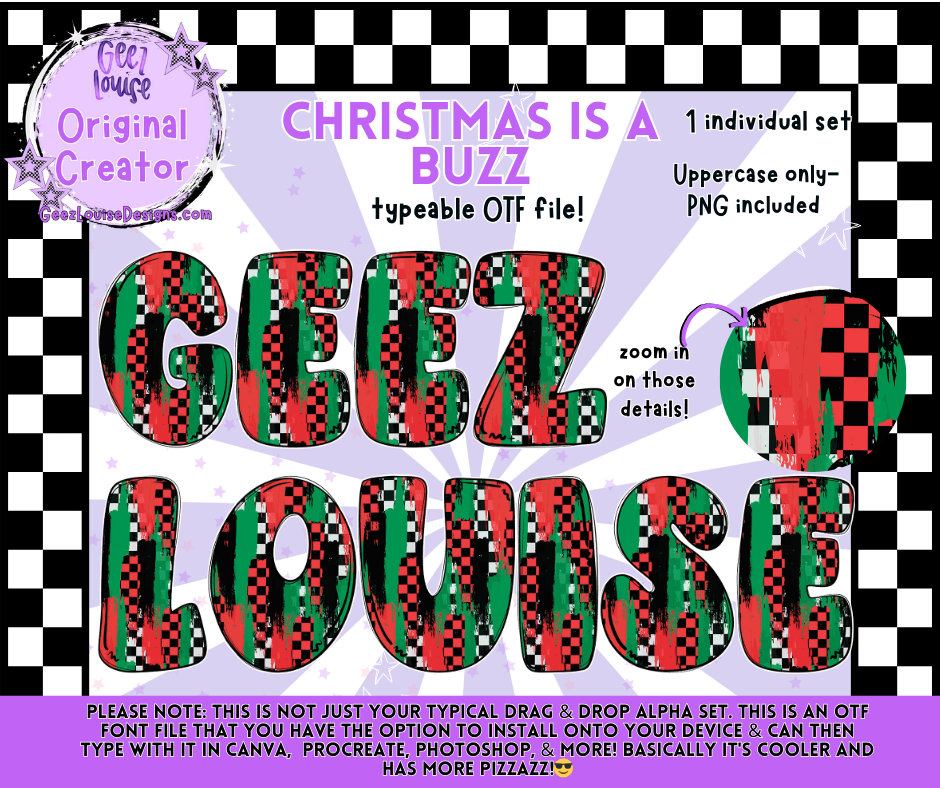
Christmas Is a Buzz Faux Embroidery OTF Alpha | Red & Green Check Digital Font + PNG
Bring holiday cheer to your designs with the Christmas Is a Buzz Faux Embroidery OTF Alpha! 🎄✨
This bold red & green checkered faux embroidery font is perfect for creating festive shirts, holiday signs, mugs, tumblers, invitations, and more. Unlike a standard alpha set, this comes as a typeable OTF font — simply install it on your device and start typing directly in Canva, Procreate, Photoshop, Illustrator, or any design software that supports fonts.
Faux embroidery stitch effect for added texture & realism